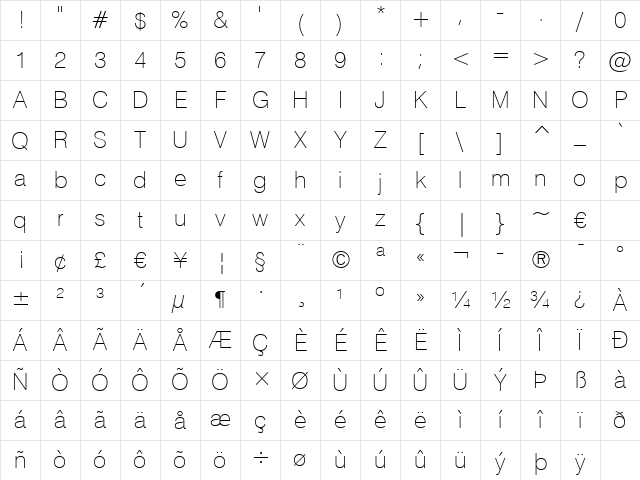
Swis721 Th BT Thin
Style: Thin
Complete Swis721 Th BT Thin glyph index. Displaying only characters natively supported by Swis721 Th BT Thin font.
Design Context for Swis721 Th BT
Swis721 Th BT is a composed and adaptable typeface that performs quietly and consistently across a wide range of design contexts. Its slender proportions lend an understated elegance to any composition.